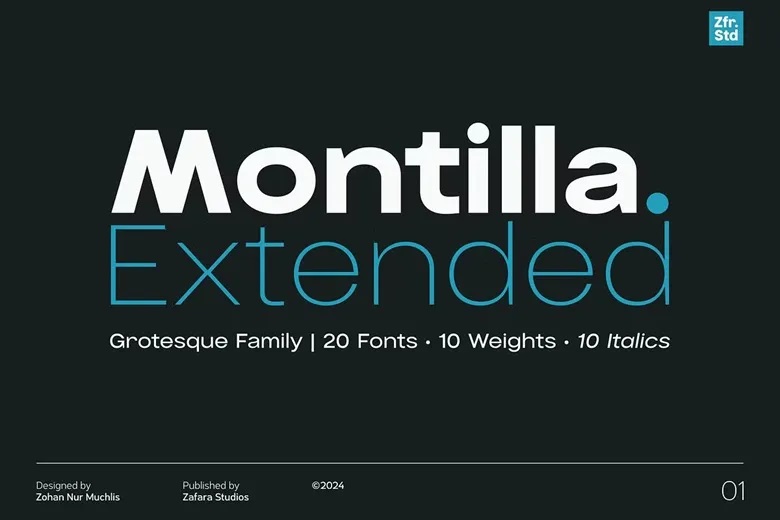
Montilla Extended Font
Montilla is a sans serif family and it could be used in various media it looks clean – geometric has nothing added that may impact the readability. It enhances the office setting by a little and has no elegance that will appeal to people who need wrist watches and it is suitable for the new generation or the professionals who have no time to ask time on other devices such as a phone or a computer and thus need a watch that will tell the time with out much complication.
There’s no better place for your company, publication, website or interface, marketing campaign, signage and way-finding system, product or service, instructions and more, than Montilla. Montilla comes in 10 styles between thin and regular weight, which are good for body text and 10 matching oblique styles.
Montilla Extended Sans Serif Font